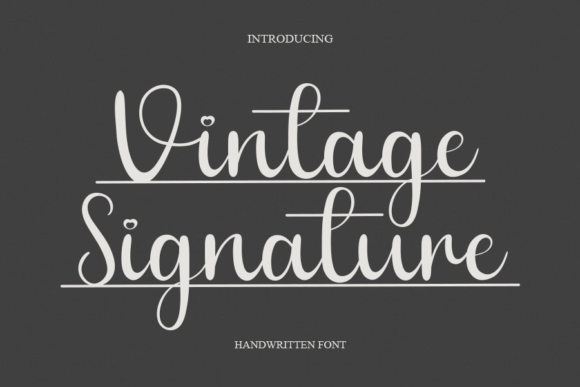
Unleash your creativity and step into the world of vintage charm with the captivating Vintage Signature Font, a script typeface that exudes sophistication and elegance. Dive into a world of timeless beauty, where every letter dances with grace and flows effortlessly.
With its artful design, Vintage Signature Font elevates your projects to new heights, adding a touch of nostalgia and timeless allure. Its stylish alternates and ligatures breathe life into your designs, allowing you to create breathtaking logos, eye-catching social media posts, and unforgettable branding materials.
Picture your designs adorned with the Vintage Signature Font's alluring curves and delicate strokes that evoke a sense of history and romance. Whether you're crafting a heartfelt wedding invitation, a captivating poster, or a personal journal, this font is the perfect companion for unleashing your inner artist.
Immerse yourself in the limitless possibilities of the Vintage Signature Font and let your imagination soar. Express your individuality, share your stories, and make a lasting impression with this exquisite font.
So why settle for ordinary when you can embrace the extraordinary? Download the Vintage Signature Font today and embark on a journey of creativity and elegance. Let your designs shine with the timeless beauty of this remarkable script font.